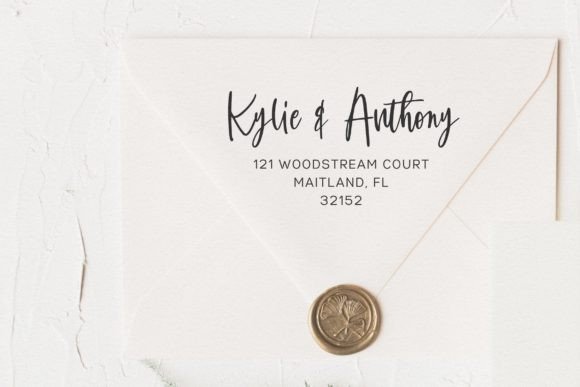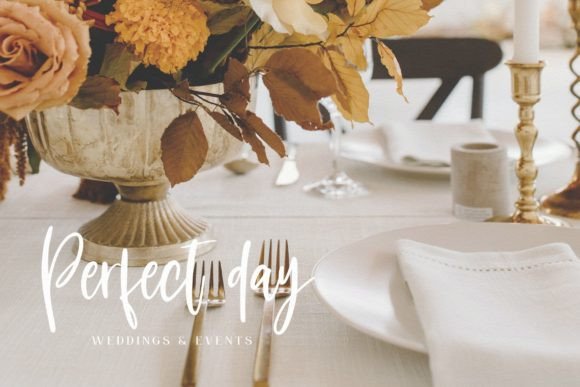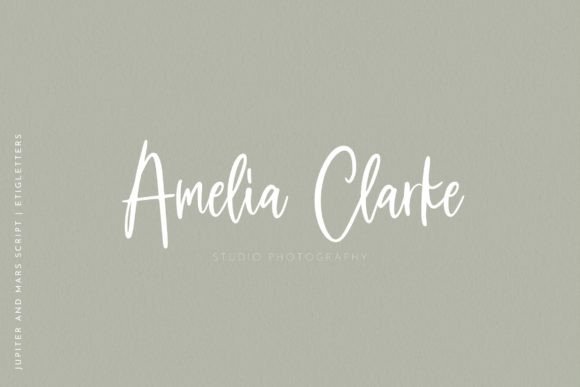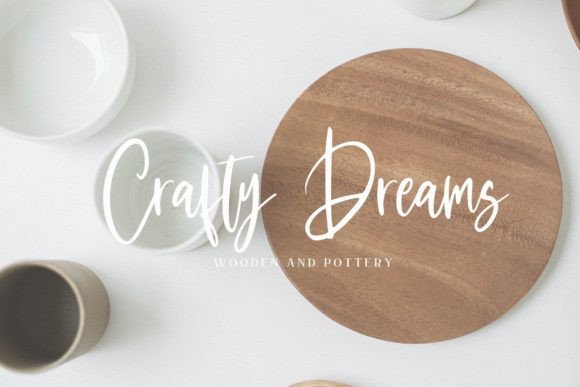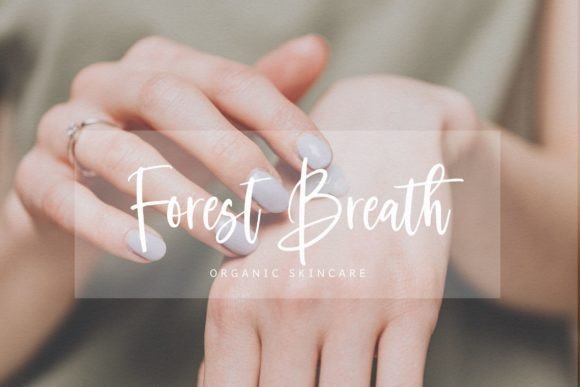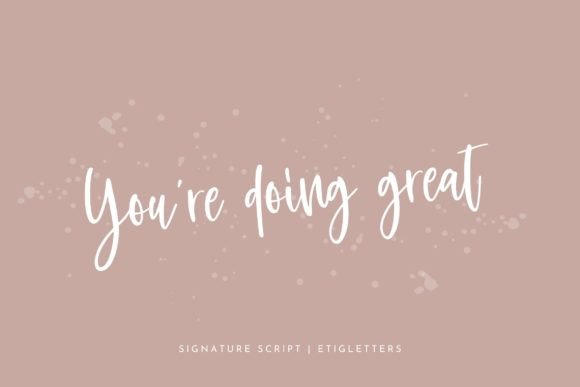
Introduction to Jupiter and Mars Font
Introducing Jupiter and Mars – a charming new handwritten font with a natural inky flow.
Jupiter and Mars will be perfect for wedding invitations, greeting cards, logos, posters, or a unique touch to your projects and branding This font is PUA encoded, which means you can access all of the glyphs and swashes with ease.
Key Features of Jupiter and Mars Font